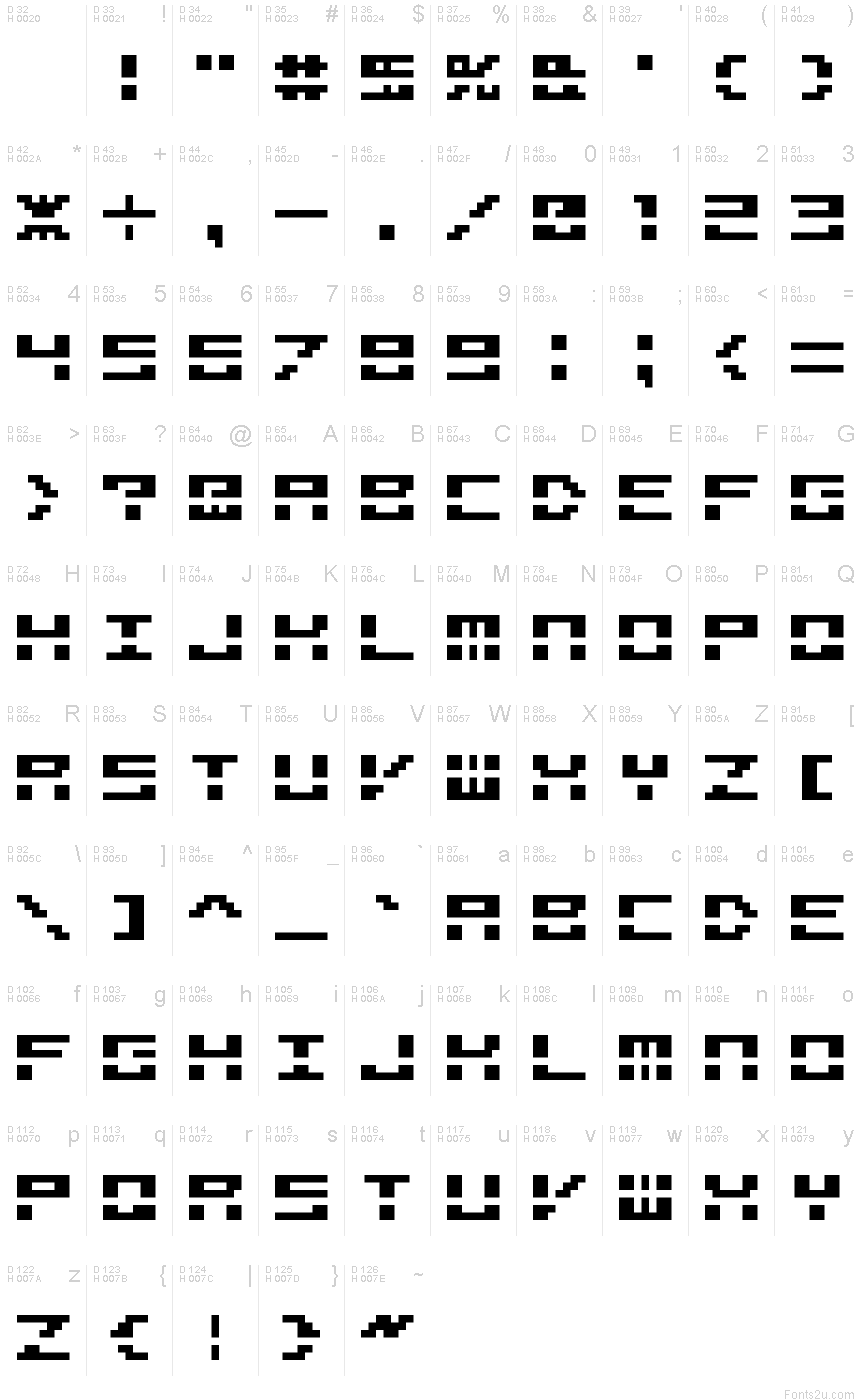
M40_BITLINE
M40 Bitline by Neko/MIFFIES is a free bitmap font defined by a rigid grid and a horizontal break that slices through the lettering like a signal line. That repeated interruption gives the blocky forms a coded, screen-born rhythm, so the design feels more like system graphics than a generic pixel font.
It makes the most sense on game menus, HUD labels, app splash screens, tech posters, and streamer overlays where that midline cut can echo interface bars and scanlike dividers. Short headings and badges especially benefit, because the squared silhouette stays compact while the split construction keeps the texture active.